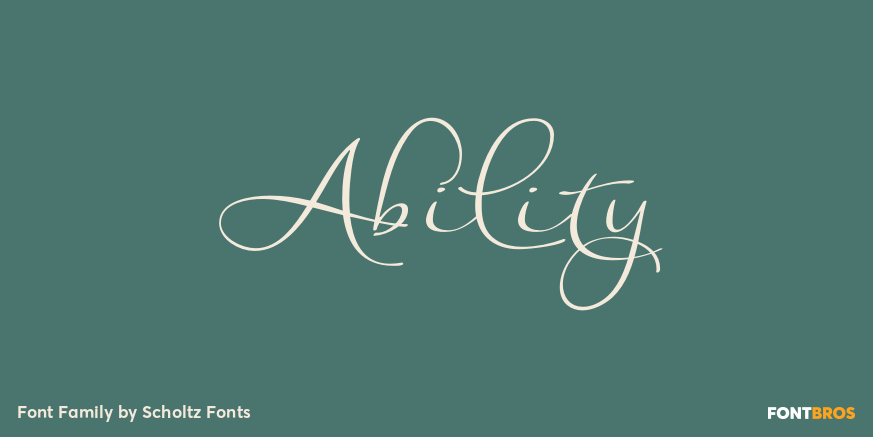
Ability
About Ability
Ability is a family of stylish and contemporary handwriting fonts that combine the vigor of hand-drawn fonts such as Affable with the elegance of fonts such as Blythe. What is unusual about Ability is that it enables a word to be formed from a group of…